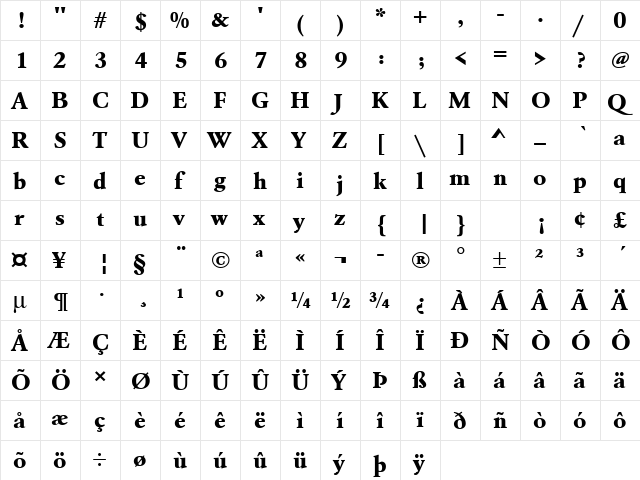
URWGaramondTExtBolWid Regular
URWGaramondTExtBolWid takes a measured approach to typography — its balanced proportions and neutral character make it a reliable workhorse for both digital and print work.